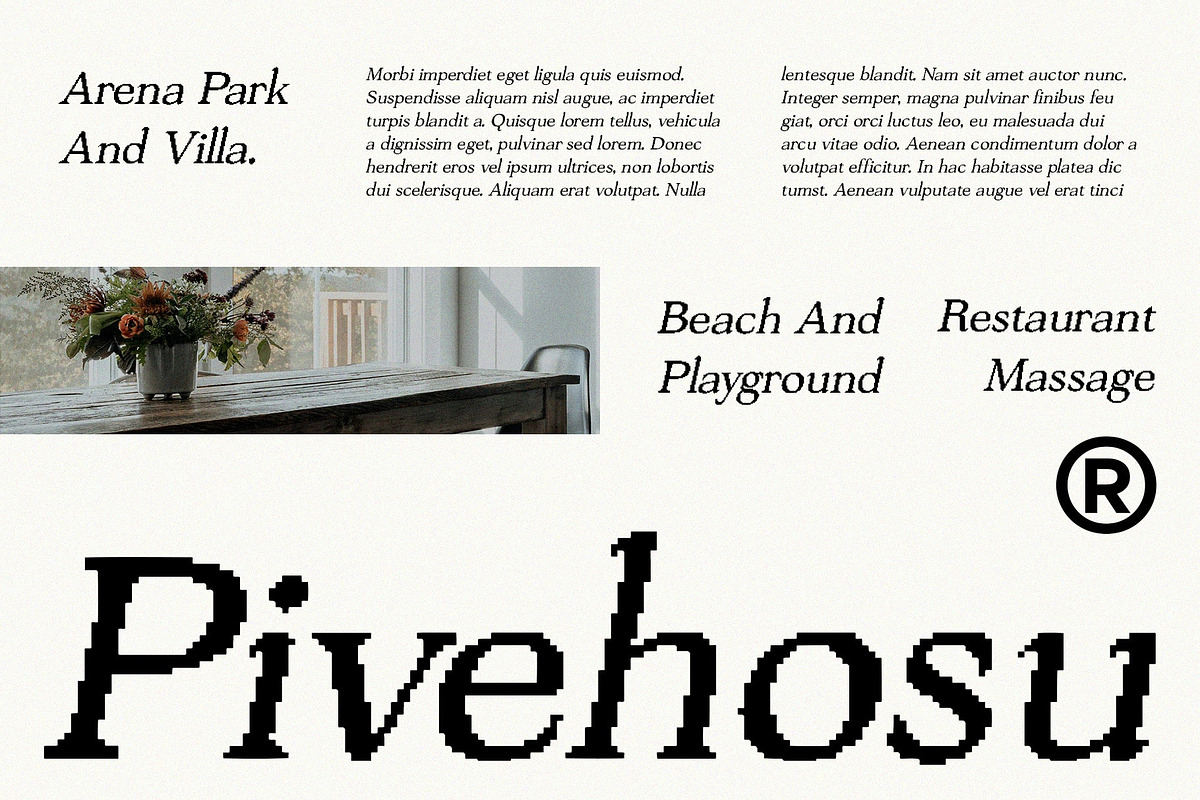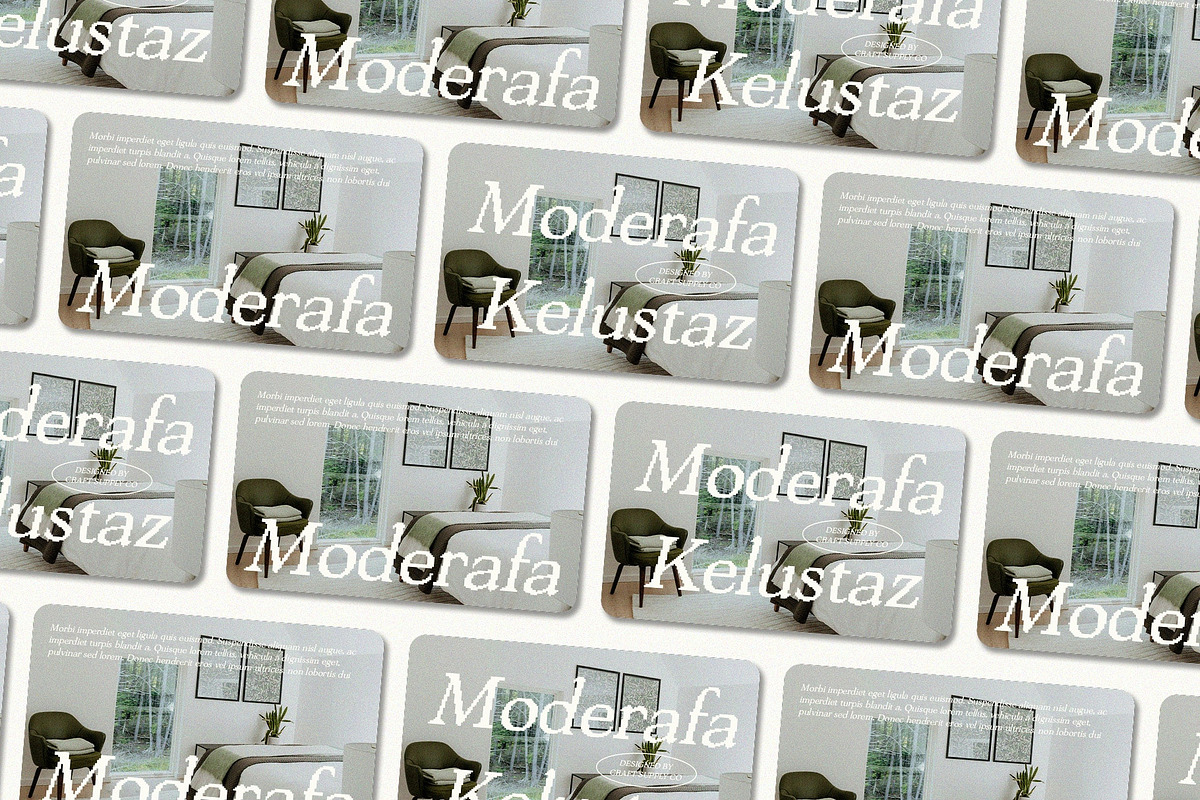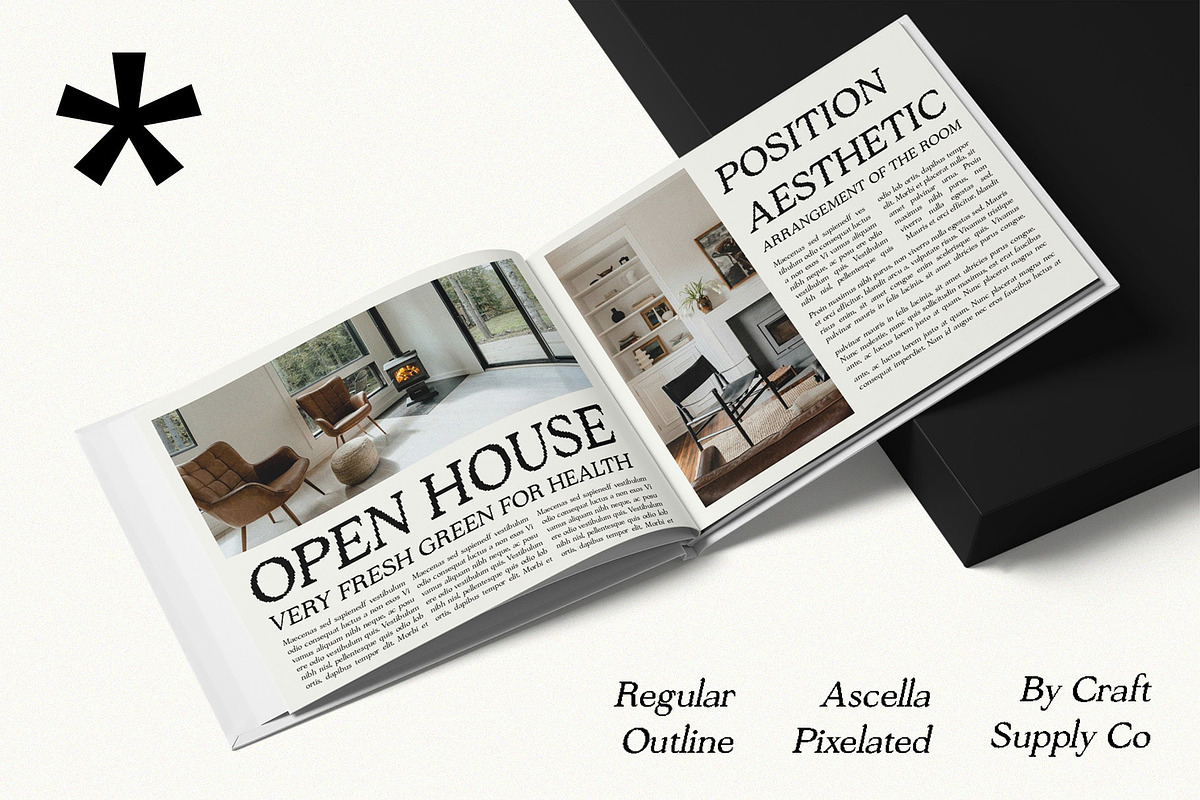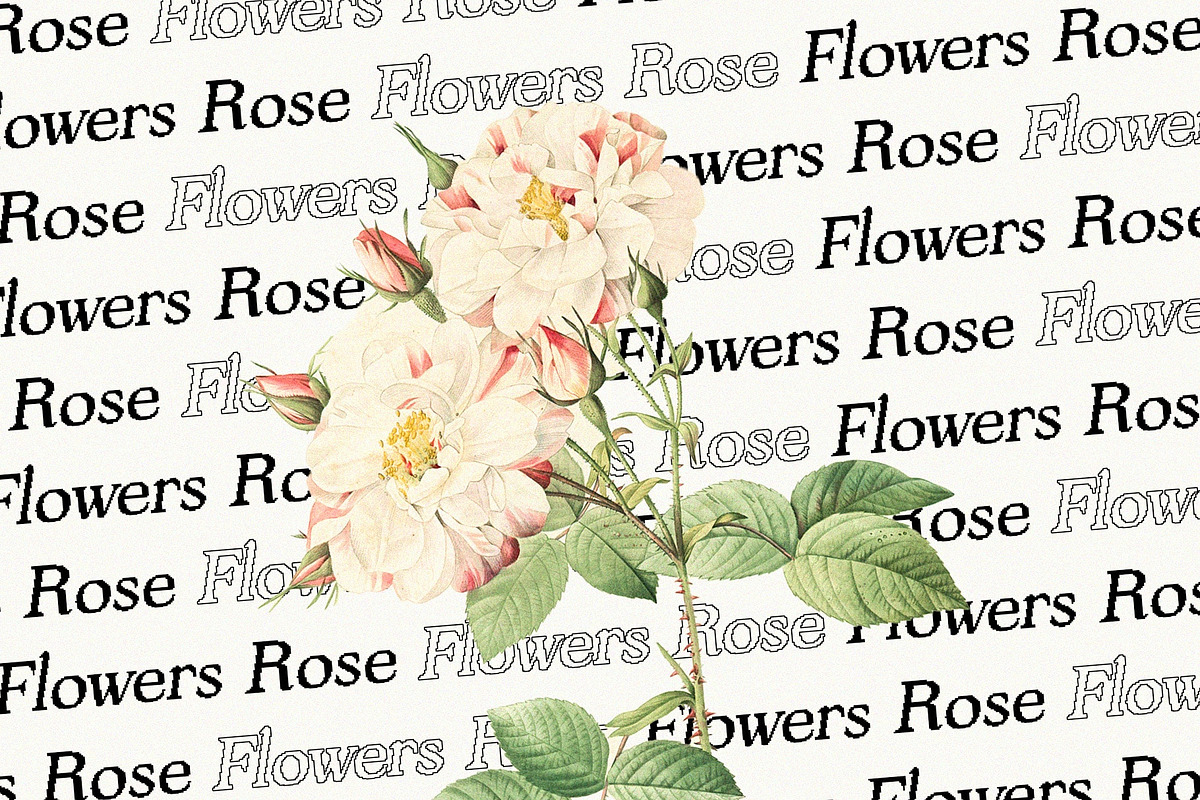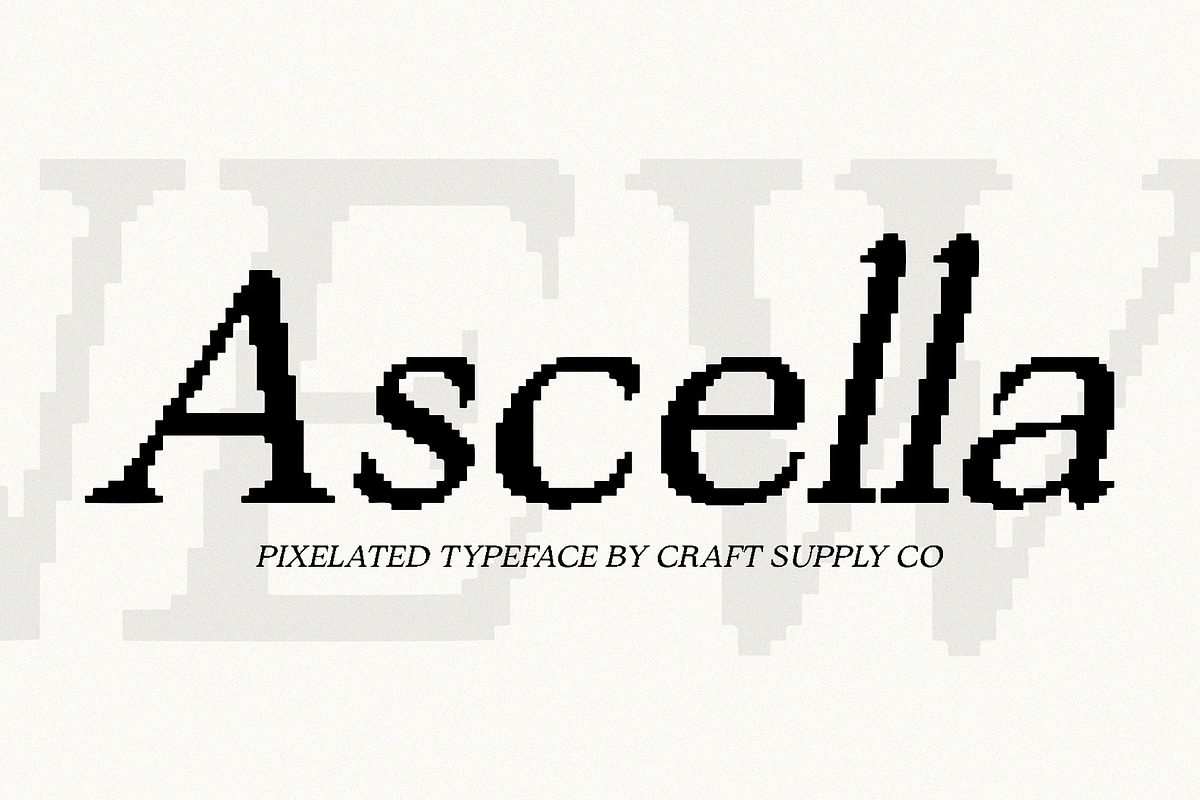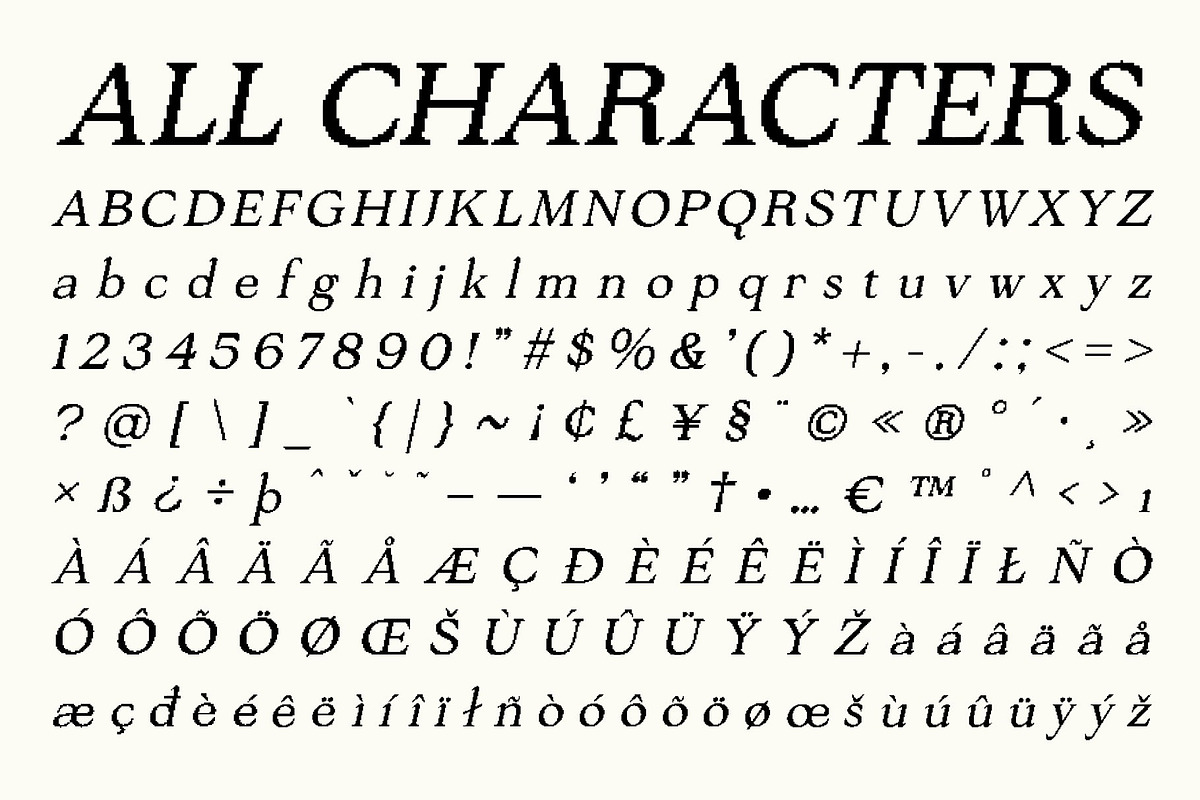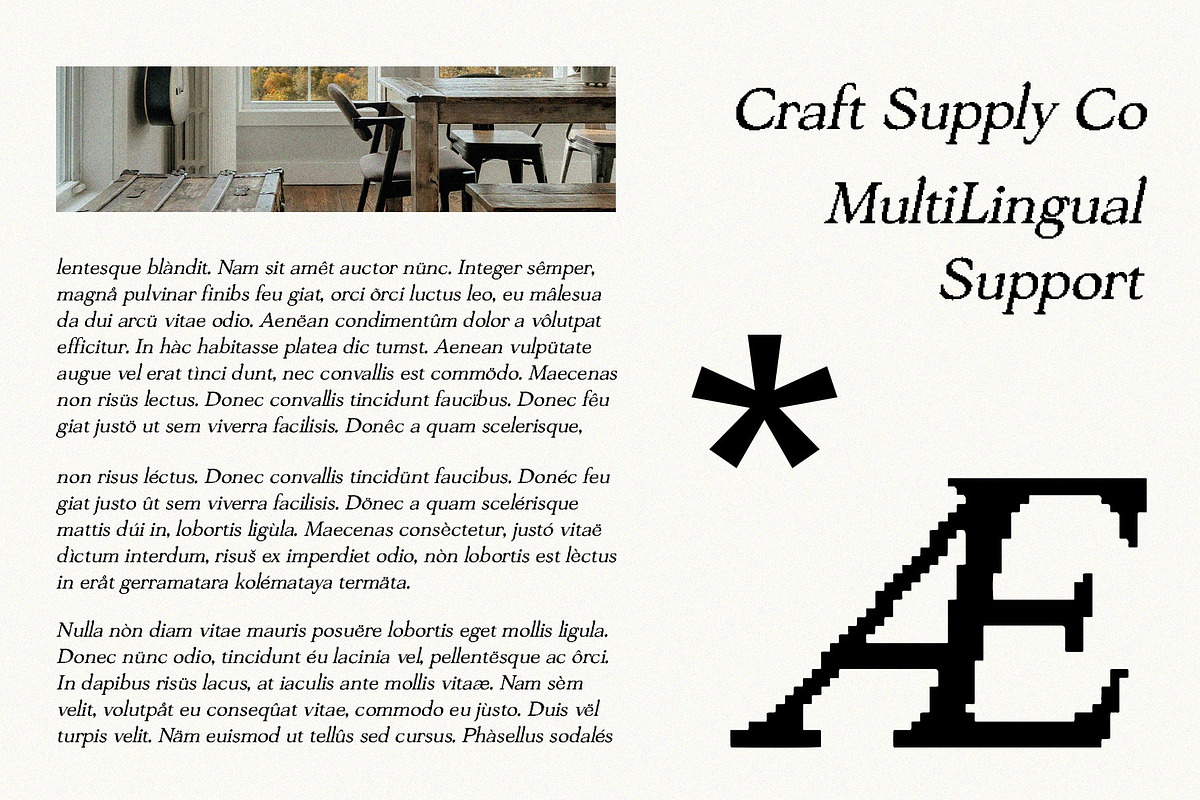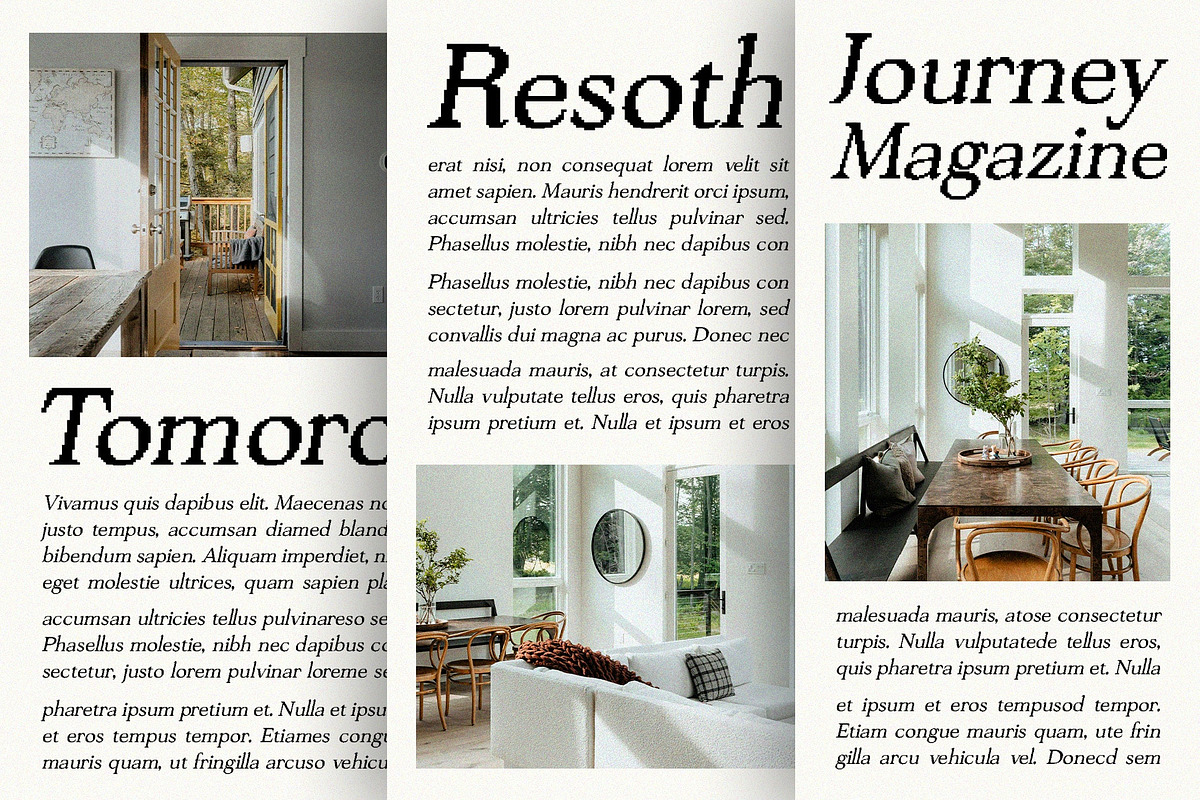
Ascella Pixel
Ascella Pixel Font: Blending Tradition with Digital Innovation
Modern Serif Font with Pixel Effect
Ascella Pixel is a modern serif font that seamlessly combines classic elegance with a contemporary pixel effect. The timeless serif shapes offer sophistication, while the pixel effect adds a modern digital touch, creating a unique and captivating design.
Elegant and Sophisticated
The classic serif shapes of Ascella Pixel provide an elegant and refined look, perfect for designs that require a touch of sophistication. This font is ideal for wedding invitations, luxury branding, and high-end magazines, where an elegant appearance is essential.
Innovative Pixel Dimension
The pixel effect introduces a modern twist to the traditional serif font, adding depth and interest to your designs. This innovative blend of old and new ensures your projects stand out with a unique and captivating aesthetic.
Versatile for Various Designs
Ascella Pixel is perfect for a wide range of applications, from art posters to creative projects that aim to highlight a sophisticated and contemporary aesthetic. The combination of classic serif elegance and modern pixelation makes this font versatile and suitable for various design needs.
Make Your Designs Stand Out
Choose Ascella Pixel to bring a blend of tradition and innovation to your projects. Whether you’re designing for print or digital, this font ensures your work is both elegant and modern, making a lasting impression with its distinctive style.